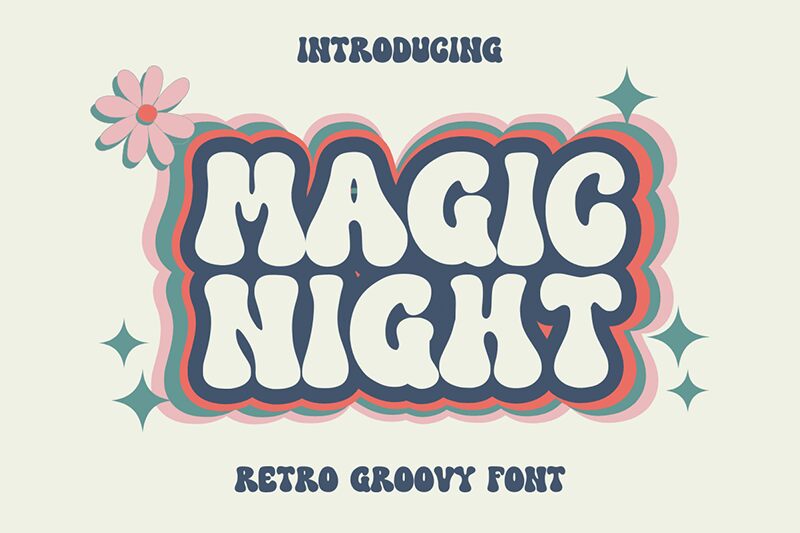
MAGIC NIGHT
Magic Night font designed by Tri Sakti Oktaviano is a retro groovy display typeface with a whimsical style and bold presence. The font’s unusual shape gives it an outstanding appearance, making it perfect for projects that need to draw instant attention from viewers. Some described the font as one with peculiar top lines, which when combined with its captivating curves create a nostalgic feel that’s potential for use in vintage or psychedelic themes.
Free of charge, the download can fall into use in album covers, posters, T-shirt designs, book covers or flyers. Other options are invitation cards along with other branding visual identities like business cards and package design.